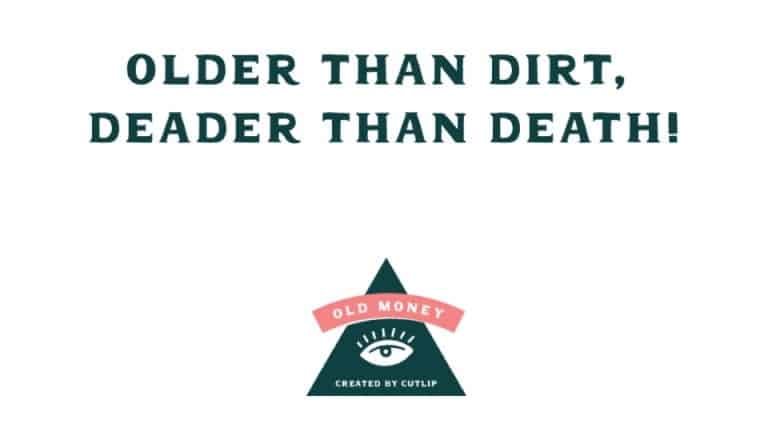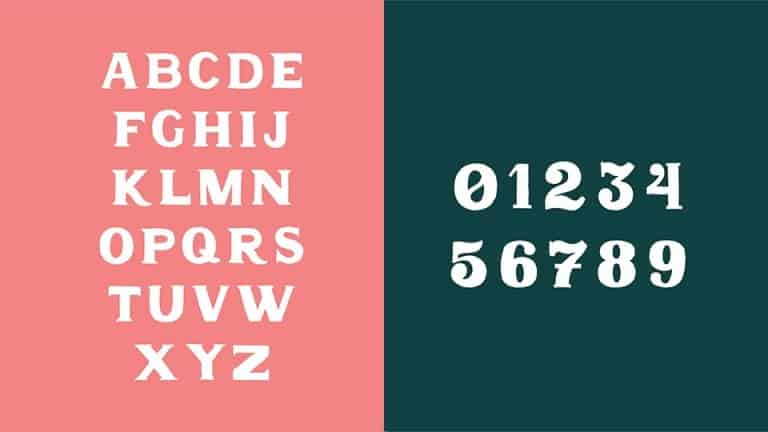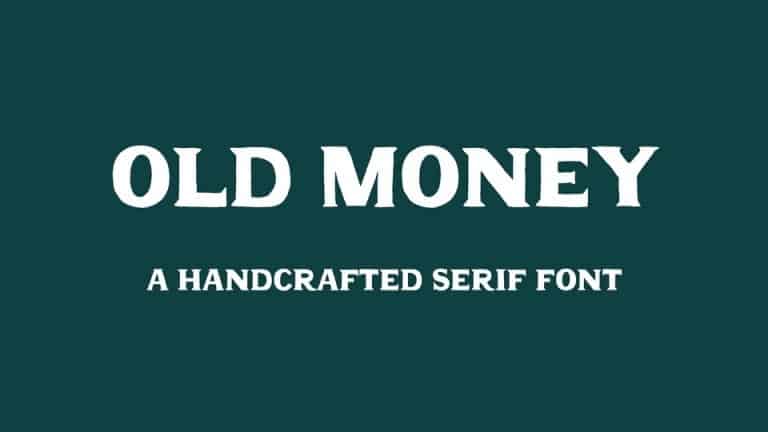
Old Money Display Font
Introducing a Retro vintage look layered label typeface named “Old Money Display Font“. Made from font designer named AZetype. It’s a handcrafted vintage serif font.
Old Money is Display font perfect for branding projects, logo, wedding designs, social media posts, advertisements, product packaging, product designs, label, photography, watermark, invitation, stationery, Badge, poster, t-shirt, label, logo etc.